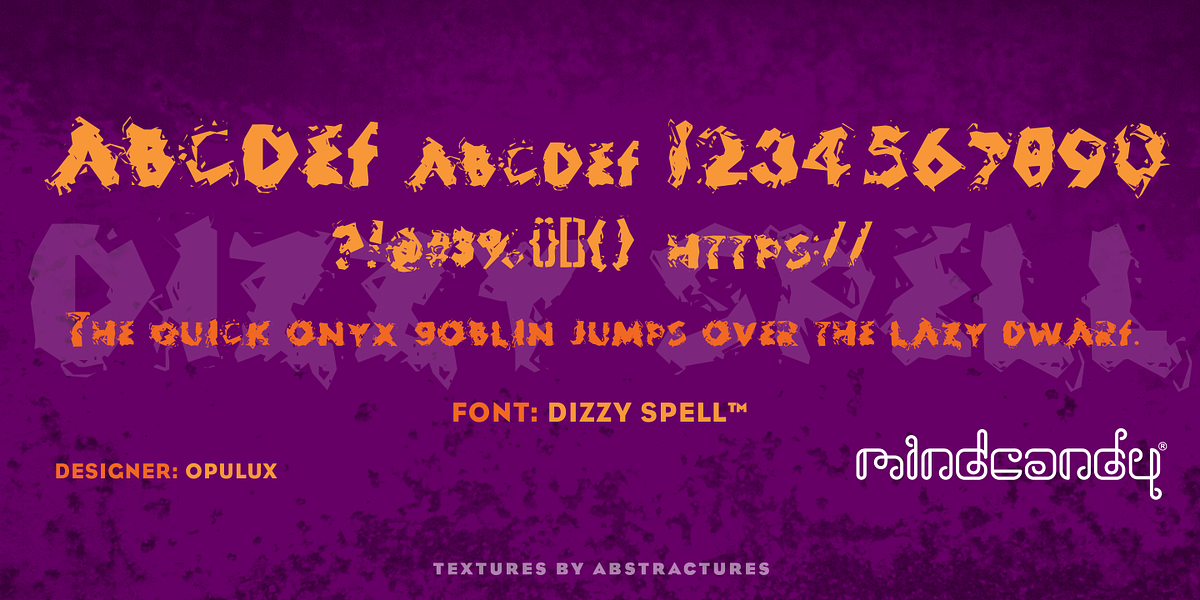
DizzySpell™
This grunge script font features a rough and textured aesthetic, making it ideal for designs that require an edgy or industrial feel. Its hand-drawn style adds a personal touch while remaining legible for headlines and branding purposes.